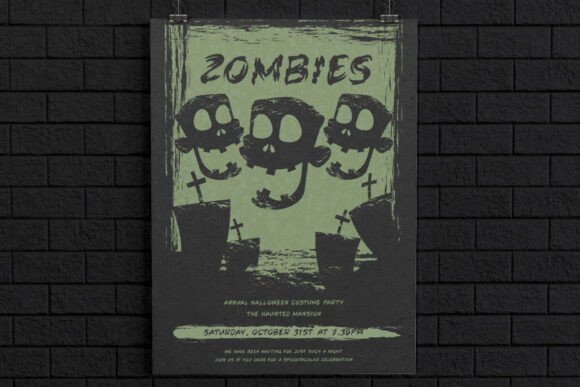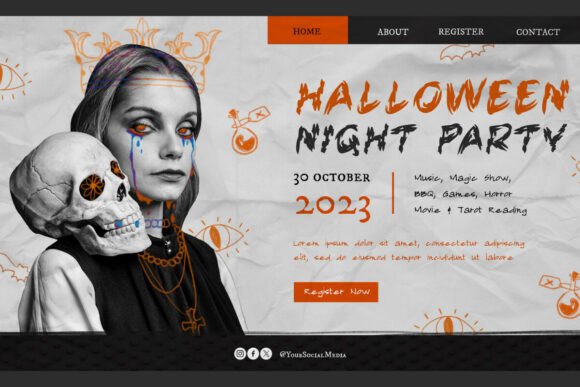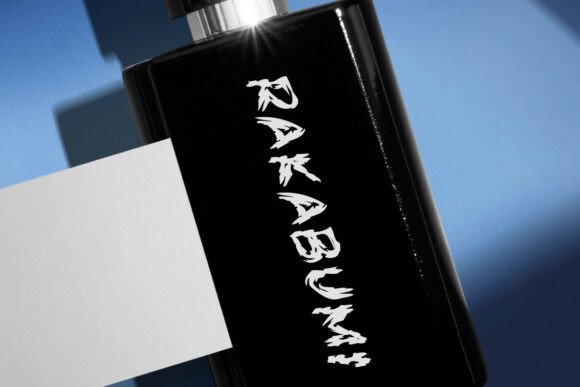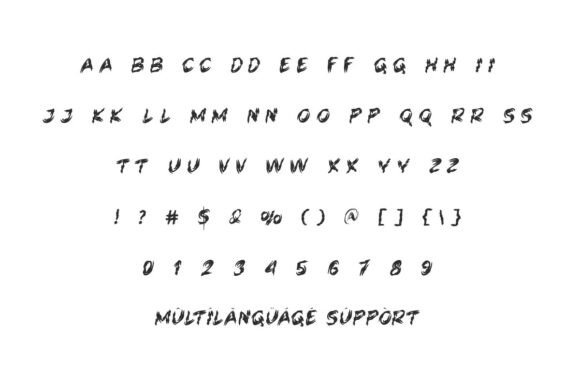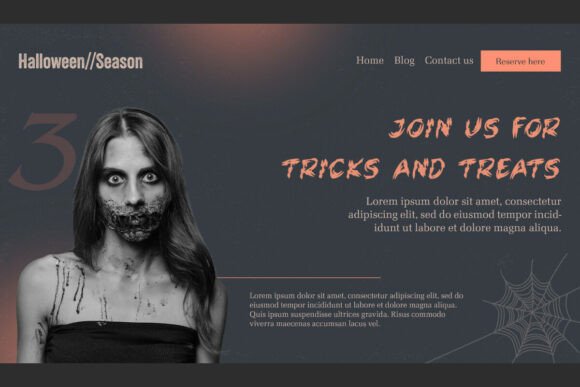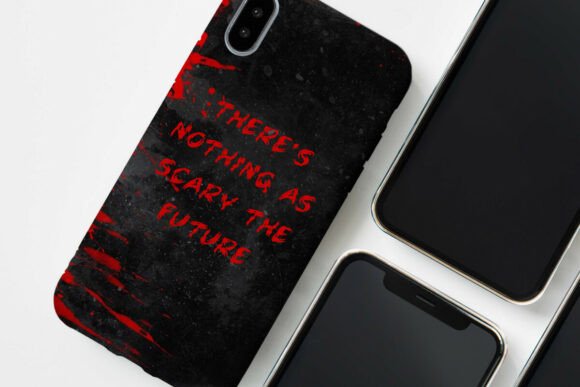
Introduction to Scary Art Font Font
Fonts play a crucial role in design, and the Scary Art Font font is a typeface that brings both character and versatility to any project. Whether you’re working on a branding project, a website, or a print design, the Scary Art Font font offers a unique style that can elevate your work.
Scary Art Font is a decorative rough brush font with horror black metal theme.
This font is inspired by messy paint strokes that gives a scary impression The font will be awesome for any industries, such as advertising, event or festival, fashion, game, movie, publishing, sport, and many more.
Key Features of Scary Art Font Font
Why Choose Scary Art Font Font?
The Scary Art Font font is more than just a typeface – it’s a design tool that helps you communicate your message with style and clarity. Its unique character set and versatile design make it suitable for a wide range of applications, from elegant invitations to bold headlines.
With its carefully crafted letterforms and balanced proportions, the Scary Art Font font ensures readability and visual appeal across all mediums.
What makes Scary Art Font font special?
The Scary Art Font font stands out with its unique design, exceptional readability, and versatility across various design applications.